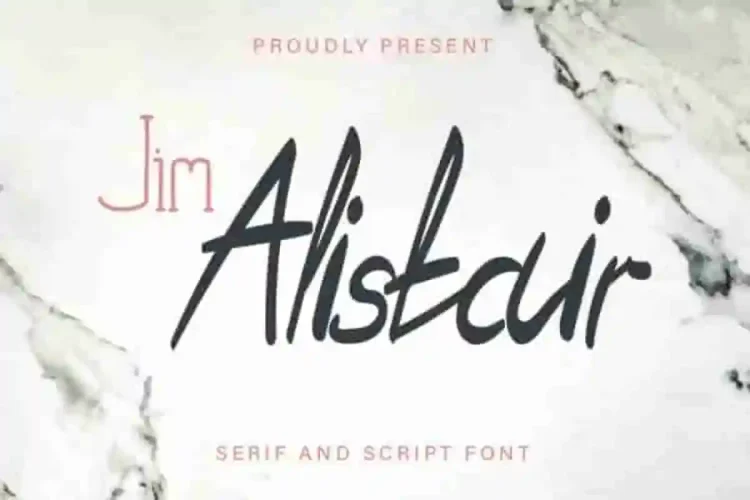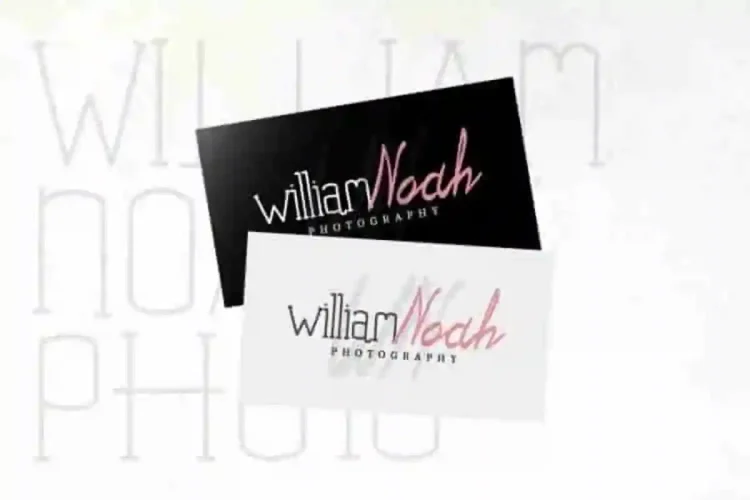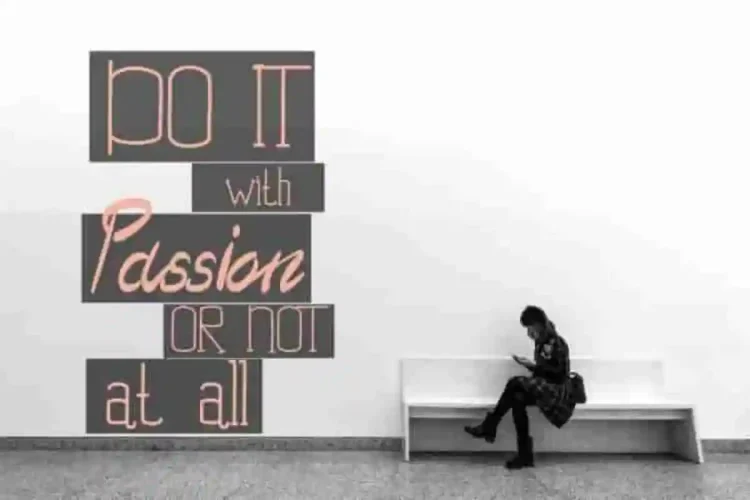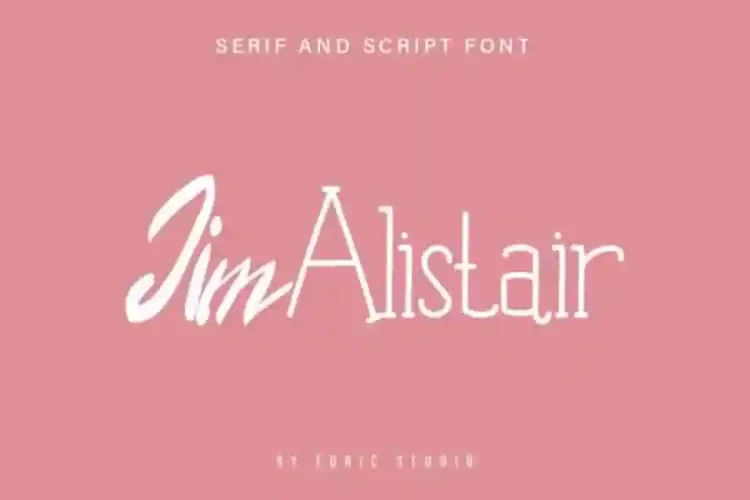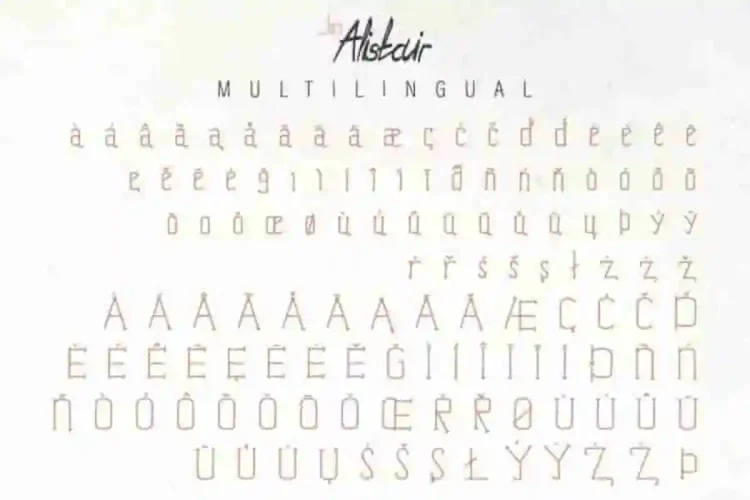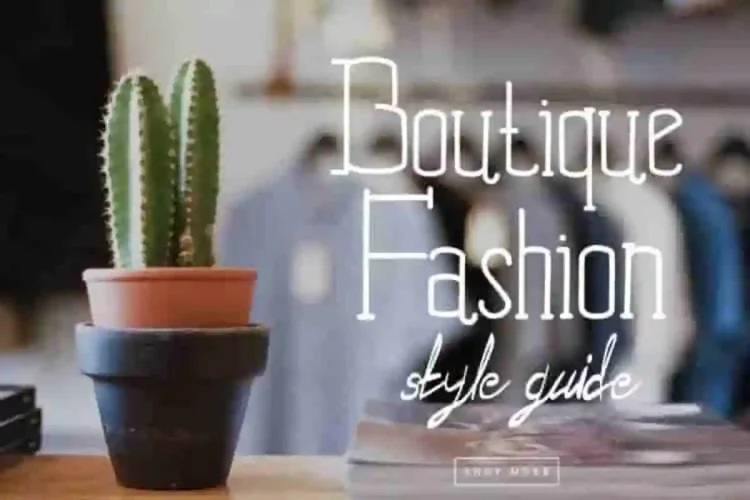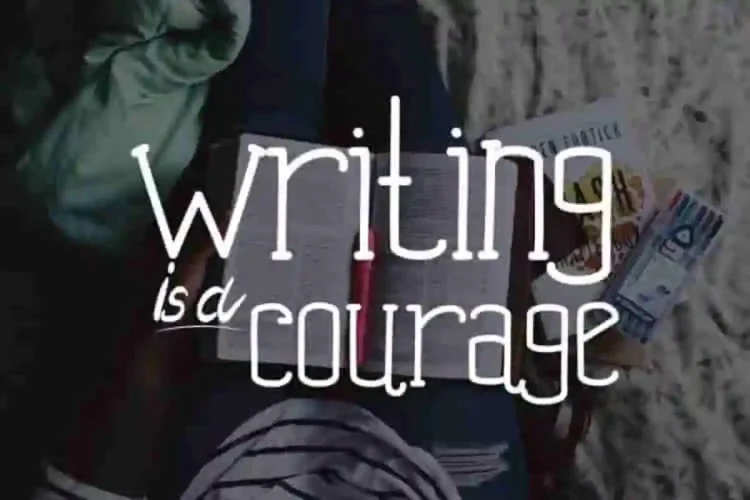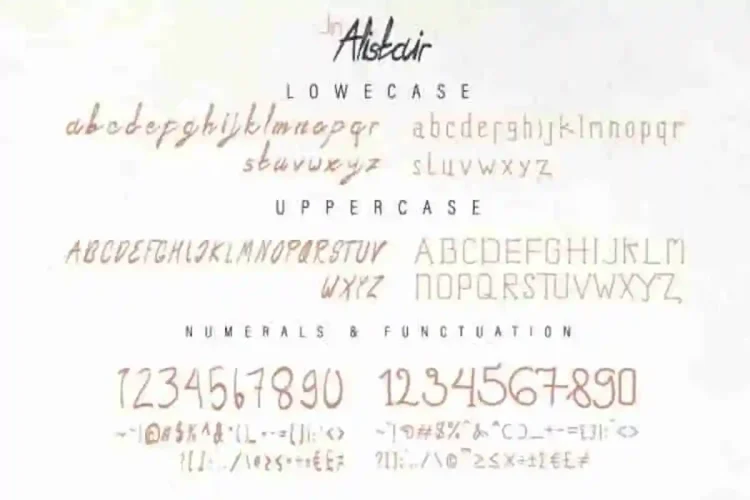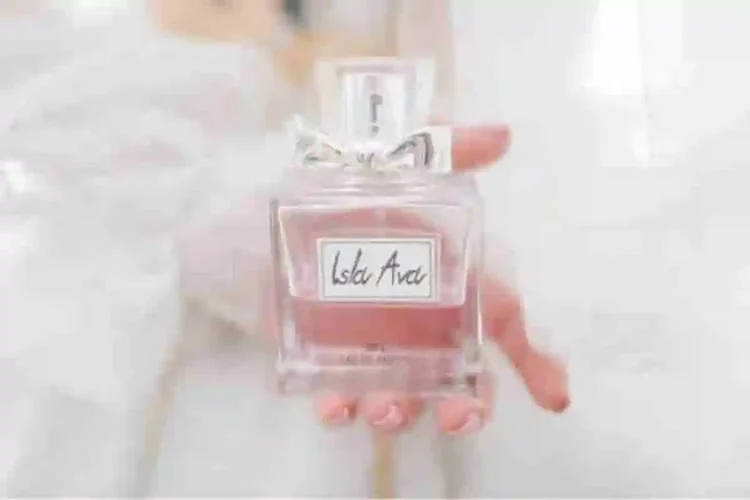
Jim Alistair Modern Script Font Duo
Our newest creatiob : Jim Alistair Modern Script Font
This is a Font Duo Family, handcrafted from our Studio here in Indonesia. The artists/designers of this beautiful tyeface are Saila, Ega and Suci.
Jim Alistair Modern Script Font is an exclusive font family with two different styles. This font has a stunning characters set, perfectly managed with well spaced and kerning.
Jim Alistair Modern Script Font will be great for any projects including : branding, logo, stationery, business card, signage, flyer, brochure etc. Almost all industries will be match for this typeface: wedding, events, real estate, architect, law firm, florist, gardening, makeup artist, travel, hotel, musician etc.